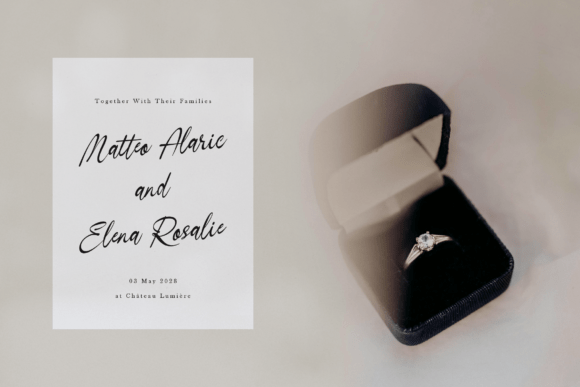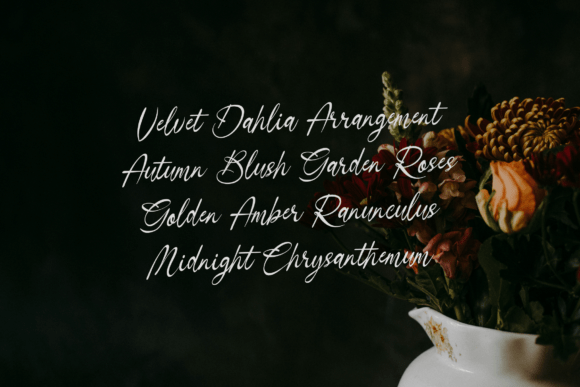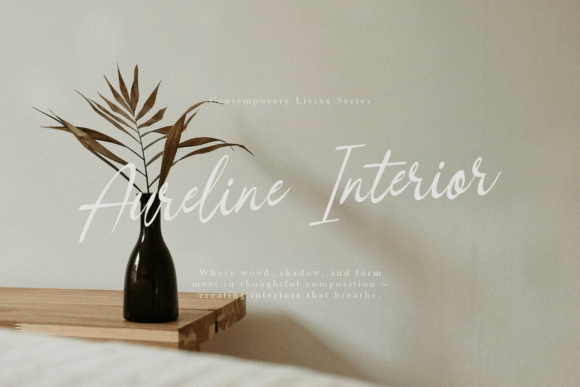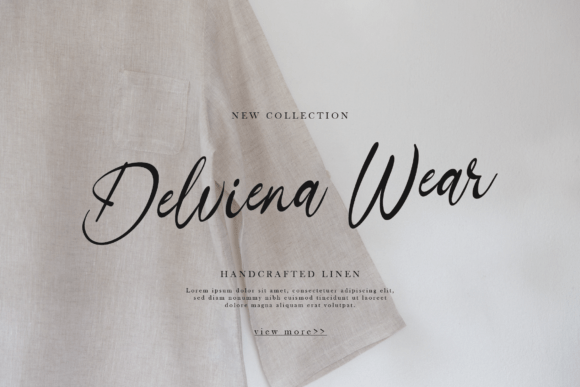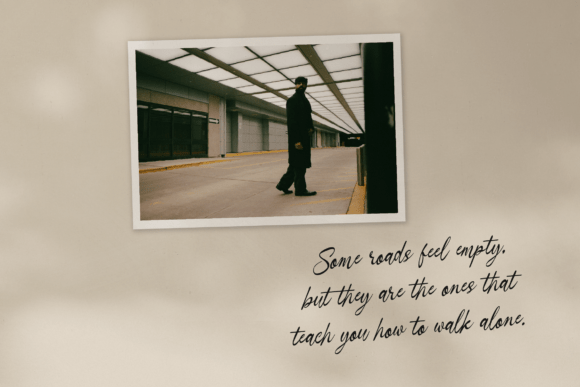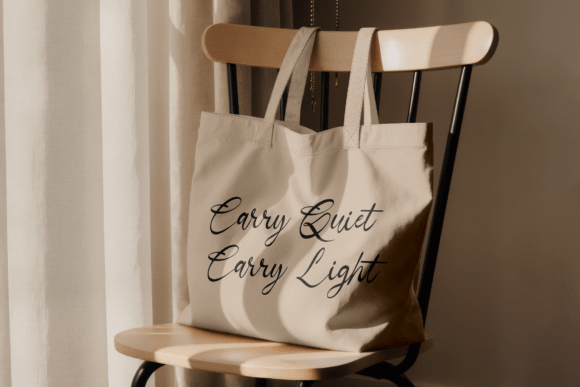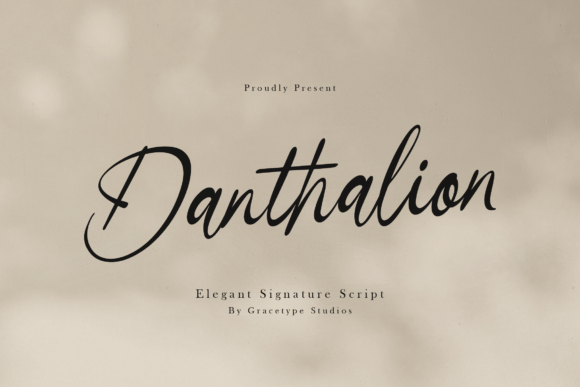
Elevate Your Brand Identity with Danthalion: The Elegant Signature Script
In the world of typography, a well-crafted font can make all the difference in establishing a brand’s identity. For designers and crafters seeking to add a touch of sophistication and elegance to their projects, Danthalion font is an exceptional choice. This exquisite signature script is meticulously designed to capture the fluid, confident motion of professional calligraphy, making it ideal for high-end boutique logos, executive business cards, luxury photography watermarks, and editorial fashion spreads.
The Characteristics of Danthalion Font
Danthalion font boasts a unique set of characteristics that set it apart from other typefaces. Its rhythmic flow feels both personal and high-end, making it perfect for brands that want to convey a sense of luxury and refinement. The font features:
• Fluid motion: Danthalion’s curves and swashes are designed to mimic the natural flow of handwriting, giving it a dynamic and elegant feel.
• Confident strokes: The font’s confident strokes convey a sense of professionalism and sophistication, making it suitable for high-end brands.
• Personal touch: Danthalion’s subtle imperfections and nuances give it a personal, hand-crafted feel that sets it apart from more traditional typefaces.
Uses for Danthalion Font
Danthalion font is incredibly versatile and can be used in a variety of applications, including:
• High-end boutique logos: Danthalion’s elegant script is perfect for luxury brands that want to establish a sophisticated and refined identity.
• Executive business cards: The font’s confident strokes and personal touch make it an excellent choice for executive business cards that need to convey professionalism and style.
• Luxury photography watermarks: Danthalion’s subtle elegance makes it an excellent choice for luxury photography watermarks that need to add a touch of sophistication to images.
• Editorial fashion spreads: The font’s fluid motion and rhythmic flow make it perfect for editorial fashion spreads that require a high-end, stylish feel.
Why Choose Danthalion Font?
With so many typefaces available, why choose Danthalion font? Here are just a few reasons:
• Unique and distinctive: Danthalion font is a one-of-a-kind typeface that will help your brand stand out from the crowd.
• Elegant and sophisticated: The font’s elegant script and confident strokes make it perfect for brands that want to convey a sense of luxury and refinement.
• Versatile: Danthalion font can be used in a variety of applications, from logos and business cards to watermarks and editorial spreads.
Tips for Using Danthalion Font
To get the most out of Danthalion font, here are a few tips:
• Use it sparingly: Danthalion font is best used sparingly, as its elegance and sophistication can be overwhelming if overused.
• Pair it with contrasting fonts: Pair Danthalion font with contrasting fonts to create visual interest and add depth to your design.
• Experiment with different sizes and colors: Experiment with different sizes and colors to find the perfect combination for your brand.
In conclusion, Danthalion font is an exceptional choice for designers and crafters seeking to add a touch of elegance and sophistication to their projects. Its unique characteristics, versatility, and timeless elegance make it an excellent investment for any brand looking to elevate its identity.